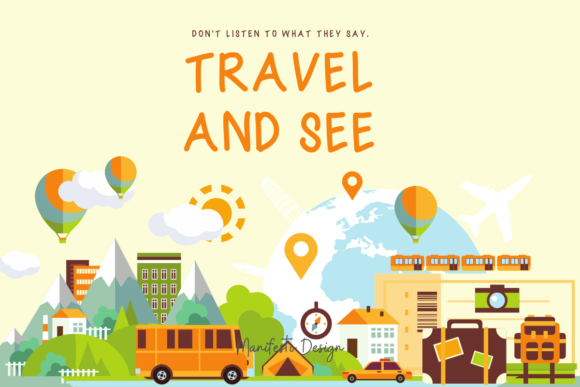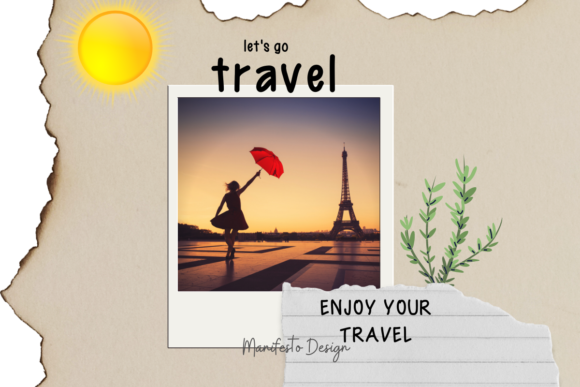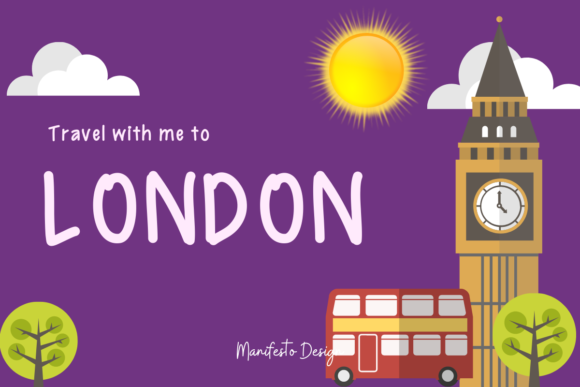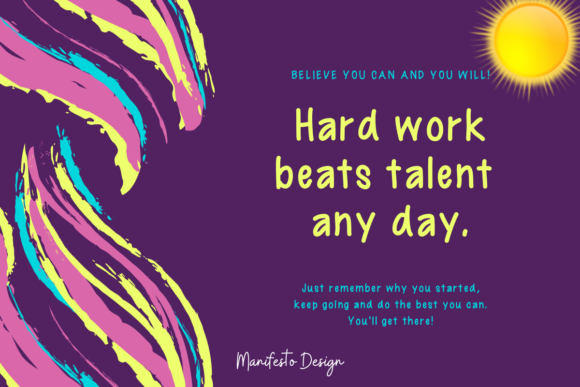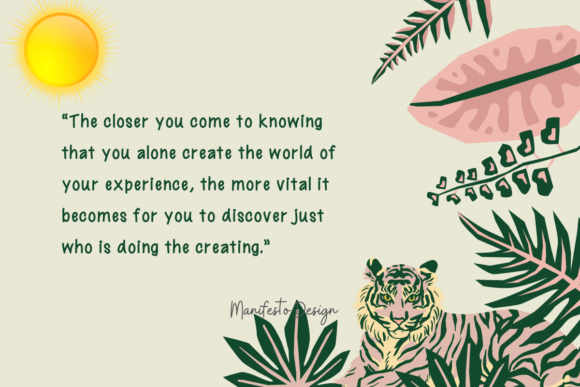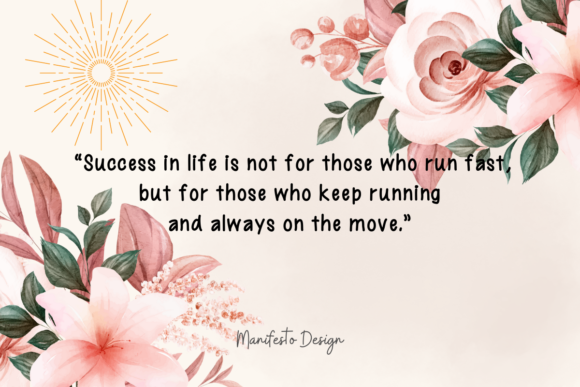
Funky Sun Font: The Perfect Addition to Your Design Toolbox
Are you a designer or crafter looking for a unique and versatile font to add a personal touch to your creations? Look no further than the Funky Sun Font! This adorable script font is perfect for anyone who wants to add a natural and authentic feel to their designs. In this article, we’ll dive into the features and benefits of the Funky Sun Font, and explore how it can elevate your designs to the next level.
What is Funky Sun Font?
Funky Sun is a cute, natural, and adaptable script font that’s perfect for a variety of design projects. Its authentic look and feel make it an ideal choice for creating chalkboard quotes, teaching materials, and other designs that require a personal touch. The font’s unique and playful style is sure to capture the attention of your audience and leave a lasting impression.
Key Features of Funky Sun Font
- Cute and Playful Style: Funky Sun Font has a unique and playful style that’s perfect for designs that require a personal touch.
- Natural and Authentic Look: The font’s natural and authentic look makes it perfect for creating chalkboard quotes and teaching materials.
- Adaptable: Funky Sun Font is highly adaptable and can be used for a variety of design projects, from digital designs to print materials.
Benefits of Using Funky Sun Font
So, why should you choose Funky Sun Font for your design projects? Here are just a few benefits of using this amazing font:
- Adds a Personal Touch: Funky Sun Font adds a personal and realistic feel to your designs, making them more relatable and engaging.
- Perfect for Chalkboard Designs: The font’s authentic look makes it perfect for creating chalkboard quotes and teaching materials.
- Versatile: Funky Sun Font can be used for a variety of design projects, from digital designs to print materials.
How to Use Funky Sun Font in Your Designs
Using Funky Sun Font in your designs is easy! Here are a few tips to get you started:
- Pair it with Other Fonts: Funky Sun Font pairs well with other fonts, so feel free to experiment with different combinations.
- Use it for Headings and Titles: The font is perfect for headings and titles, and can add a personal touch to your designs.
- Add it to Your Digital Designs: Funky Sun Font can be used for digital designs, such as social media graphics and blog posts.
- Use it for Print Materials: The font is also perfect for print materials, such as flyers, brochures, and posters.
Who is Funky Sun Font for?
Funky Sun Font is perfect for designers, crafters, and anyone who wants to add a personal touch to their designs. Here are a few examples of who can benefit from using this amazing font:
- Graphic Designers: Graphic designers can use Funky Sun Font to add a personal touch to their designs and create unique and engaging visual content.
- Crafters: Crafters can use the font to create personalized gifts, such as handmade cards and scrapbook pages.
- Teachers: Teachers can use Funky Sun Font to create engaging and interactive teaching materials, such as chalkboard quotes and worksheets.
In conclusion, Funky Sun Font is a versatile and adorable script font that’s perfect for designers, crafters, and anyone who wants to add a personal touch to their designs. Its natural and authentic look makes it perfect for creating chalkboard quotes, teaching materials, and other designs that require a personal touch. With its ease of use and adaptability, Funky Sun Font is sure to become a staple in your design toolbox.